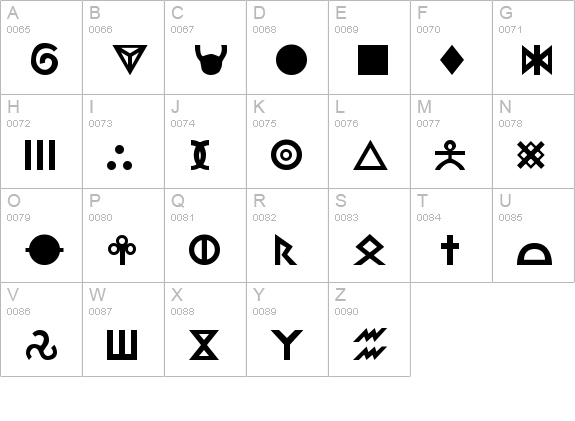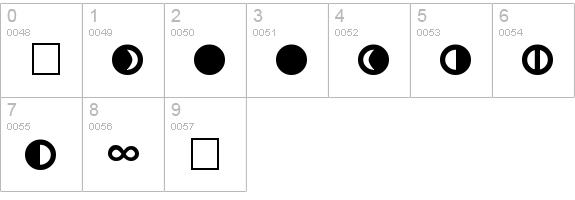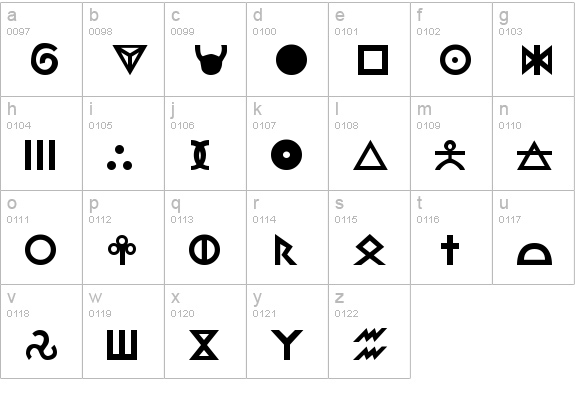
R Regular Font Details
R Regular is the standard, neutral variant in the R typeface family \xE2\x80\x94 well suited to general body text, paragraphs, and standard typographic work.